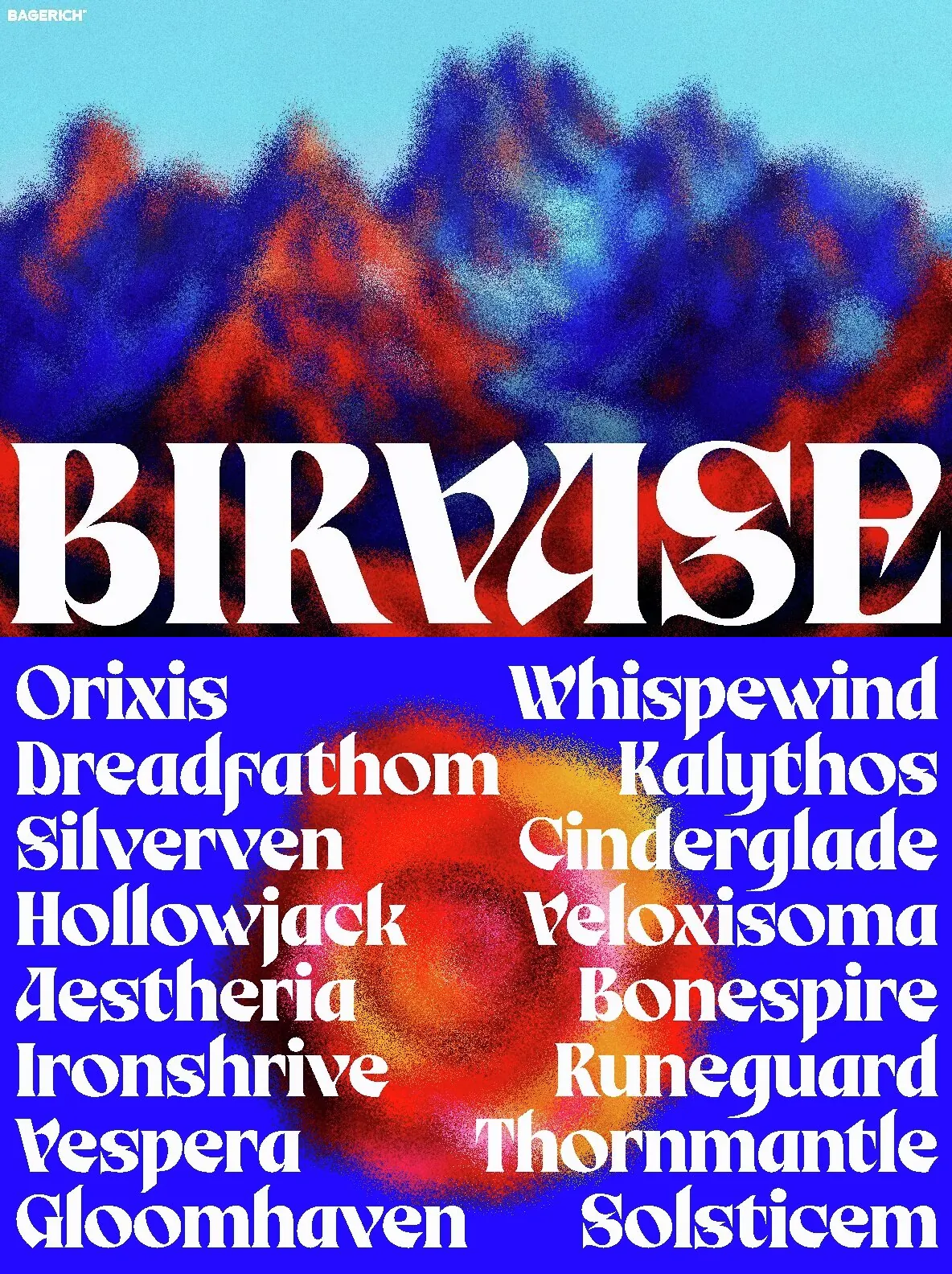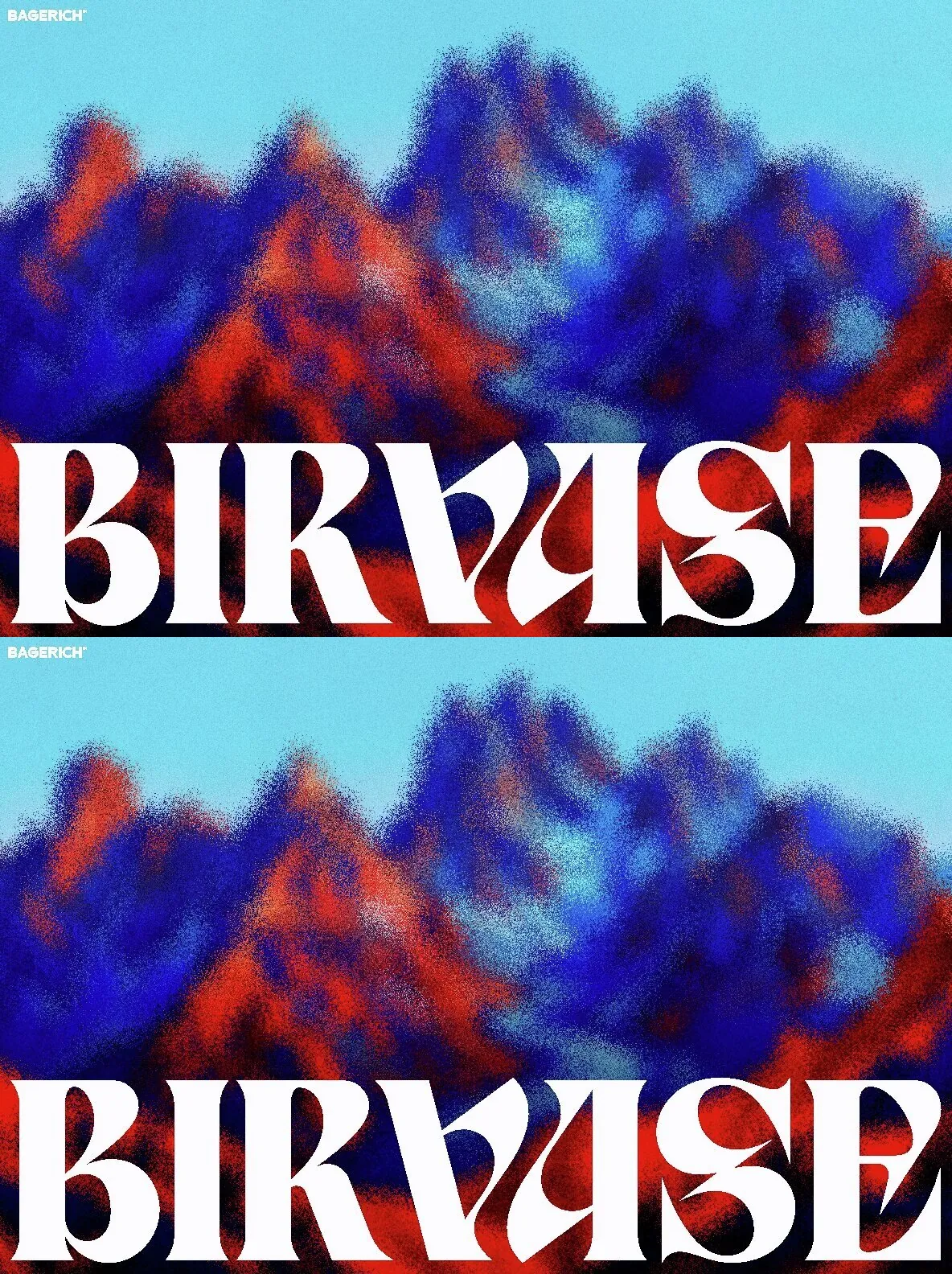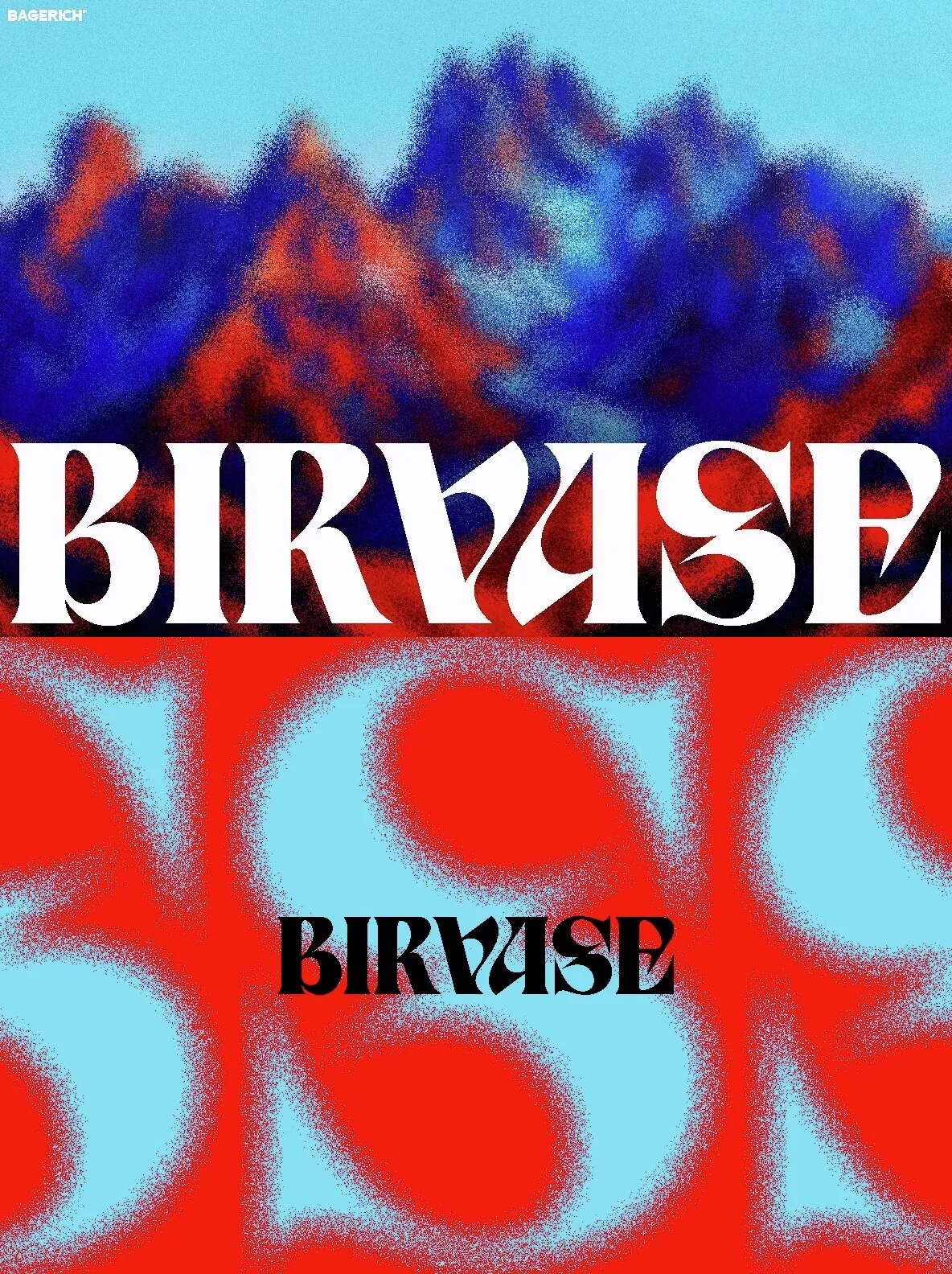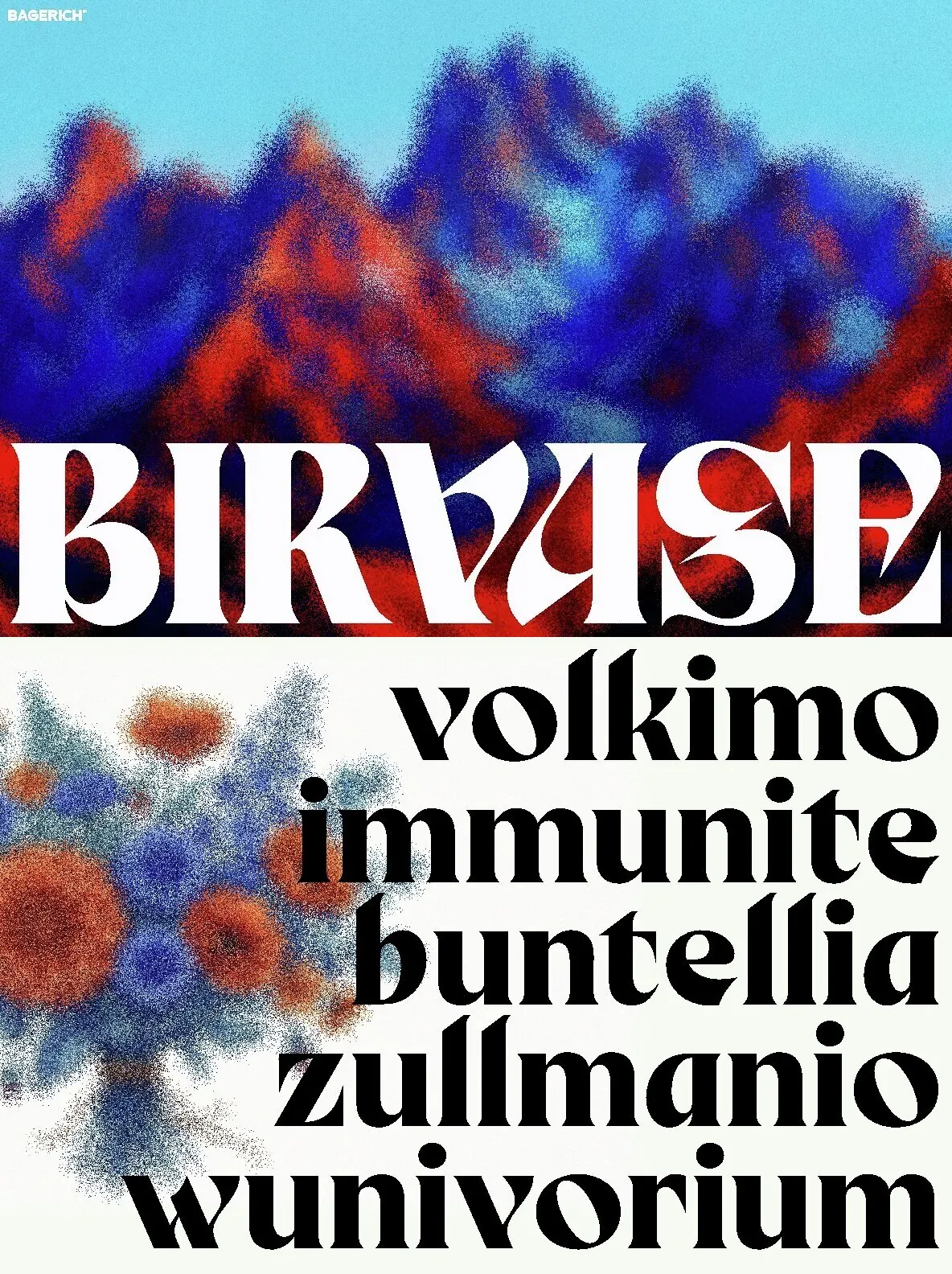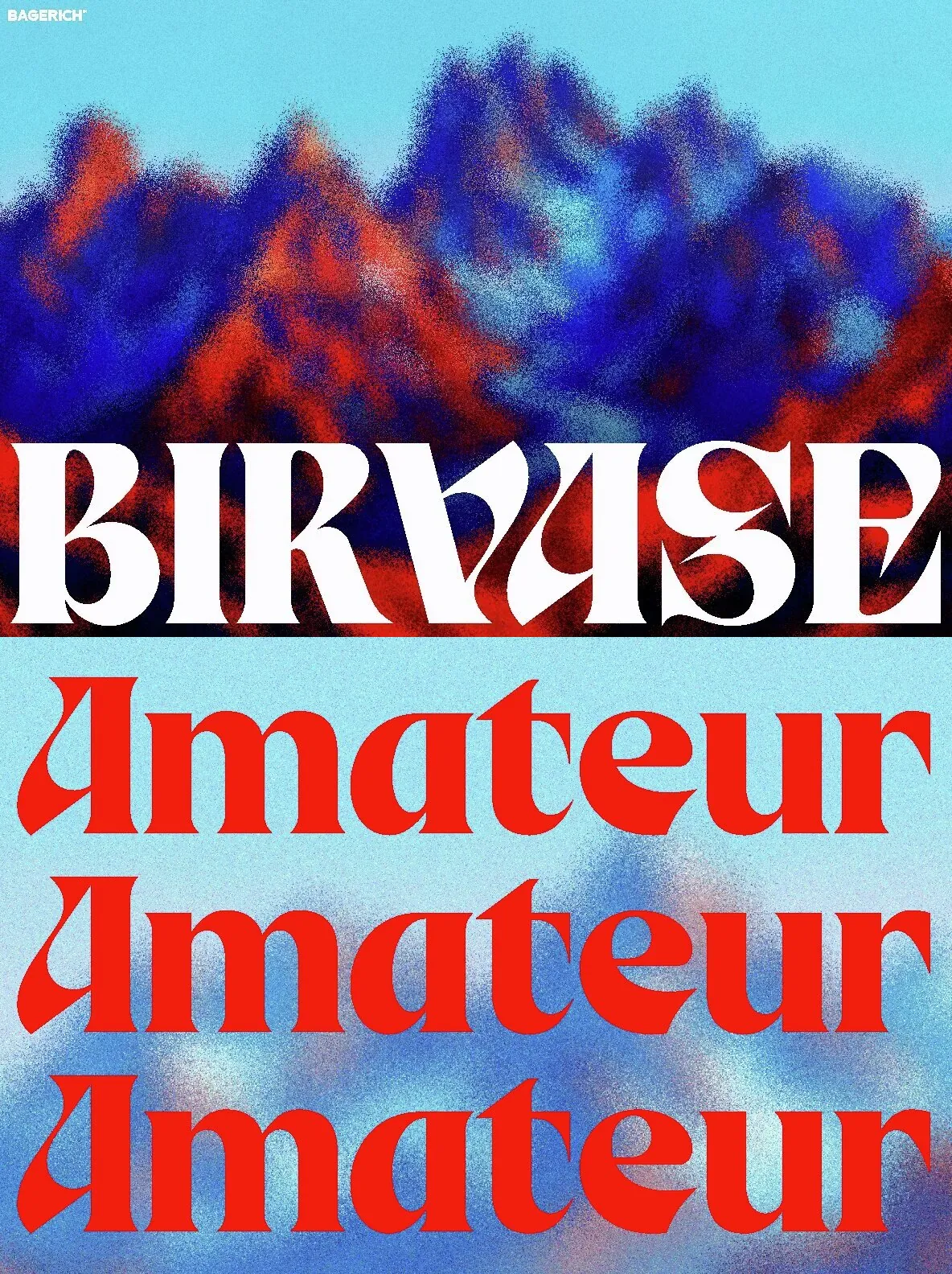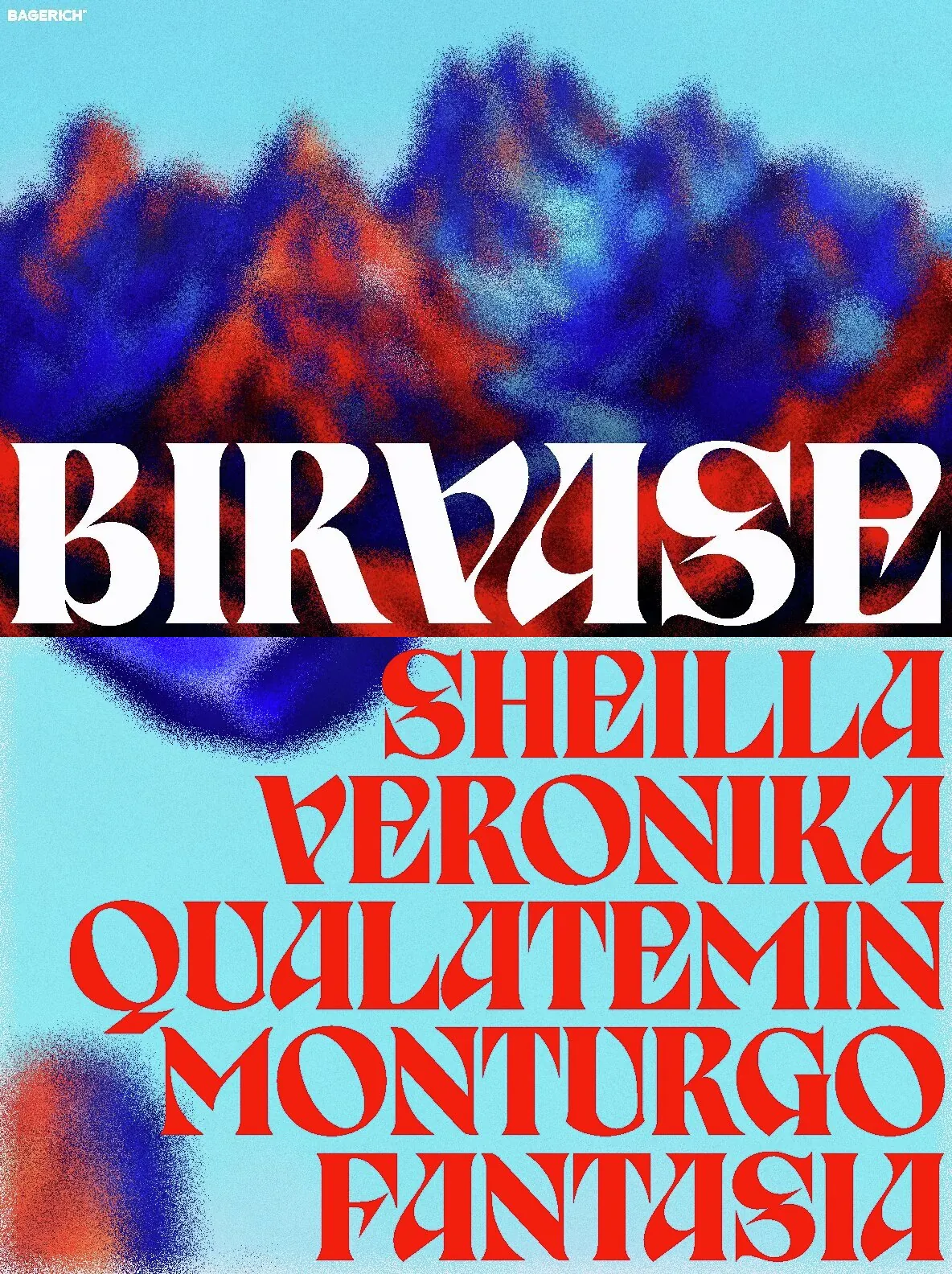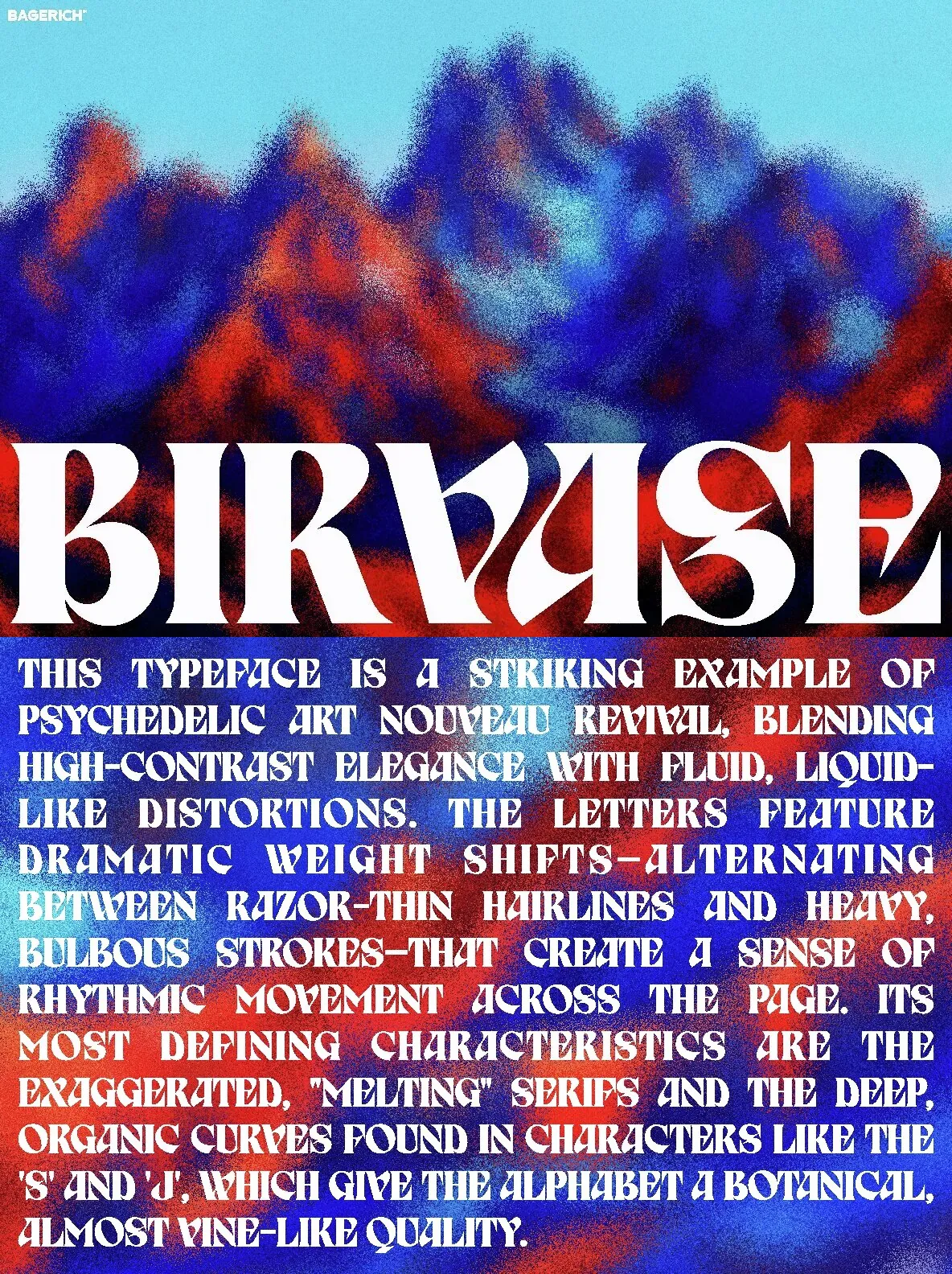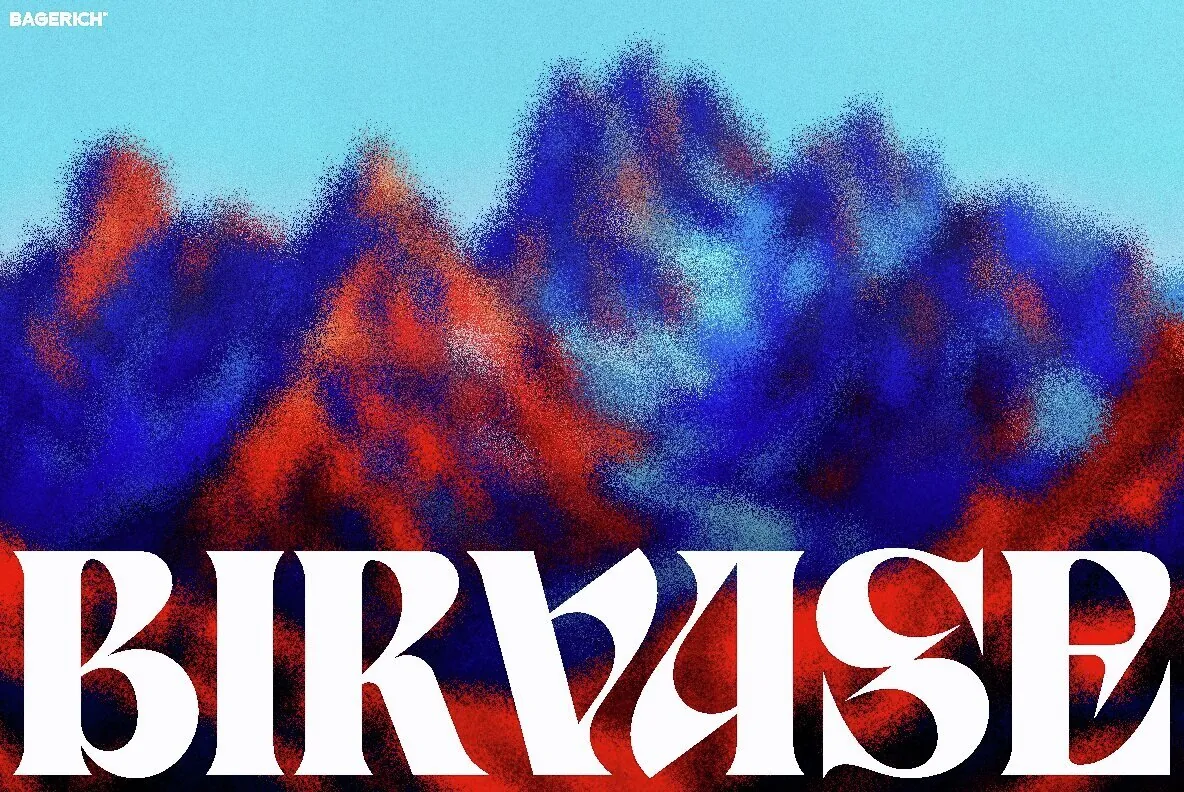
BIRVASE — Monumental Serif, Geometric Edge
BIRVASE is a high-impact display font that bridges traditional serif elegance with avant-garde geometric flair. Inspired by the rugged, majestic silhouettes of mountain ranges, it pairs bold, sweeping curves with sharp, dramatic terminals that command attention. Use it when you want typography to carry the message and set the tone from the first glance.
Its distinctive architecture includes a V and A that interlock with fluid, liquid-like grace. This detail makes BIRVASE a strong fit for brands that communicate strength, adventure, and high-end sophistication. Whether it towers over a landscape composition or anchors a minimalist layout, it brings tactile, monumental energy to every character.
Designed for the bold and the visionary, BIRVASE shines in high-fashion editorial spreads, cinematic posters, luxury packaging, and experimental branding. Its heavy weight and intricate negative spaces hold up against complex textures—like the grainy, stippled landscape in its debut—while maintaining impeccable legibility. When you need a typeface that defines the space it occupies, BIRVASE delivers an unforgettable visual identity.